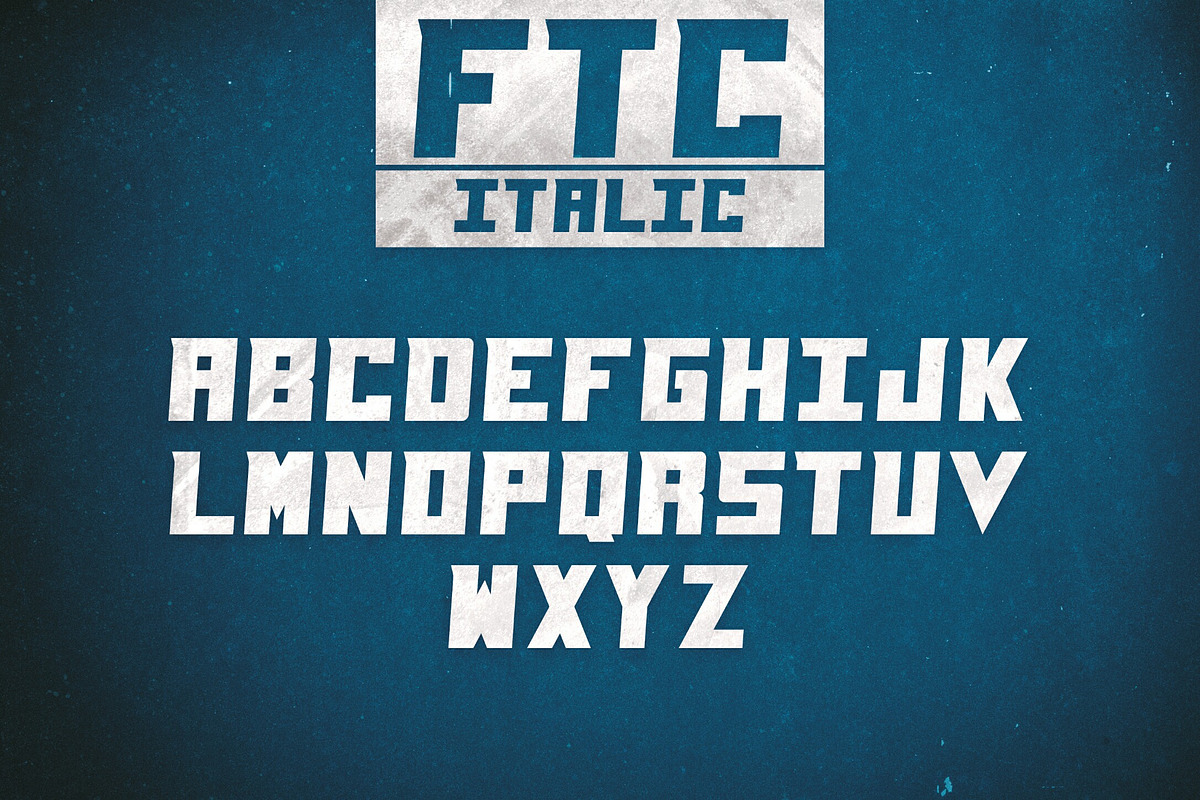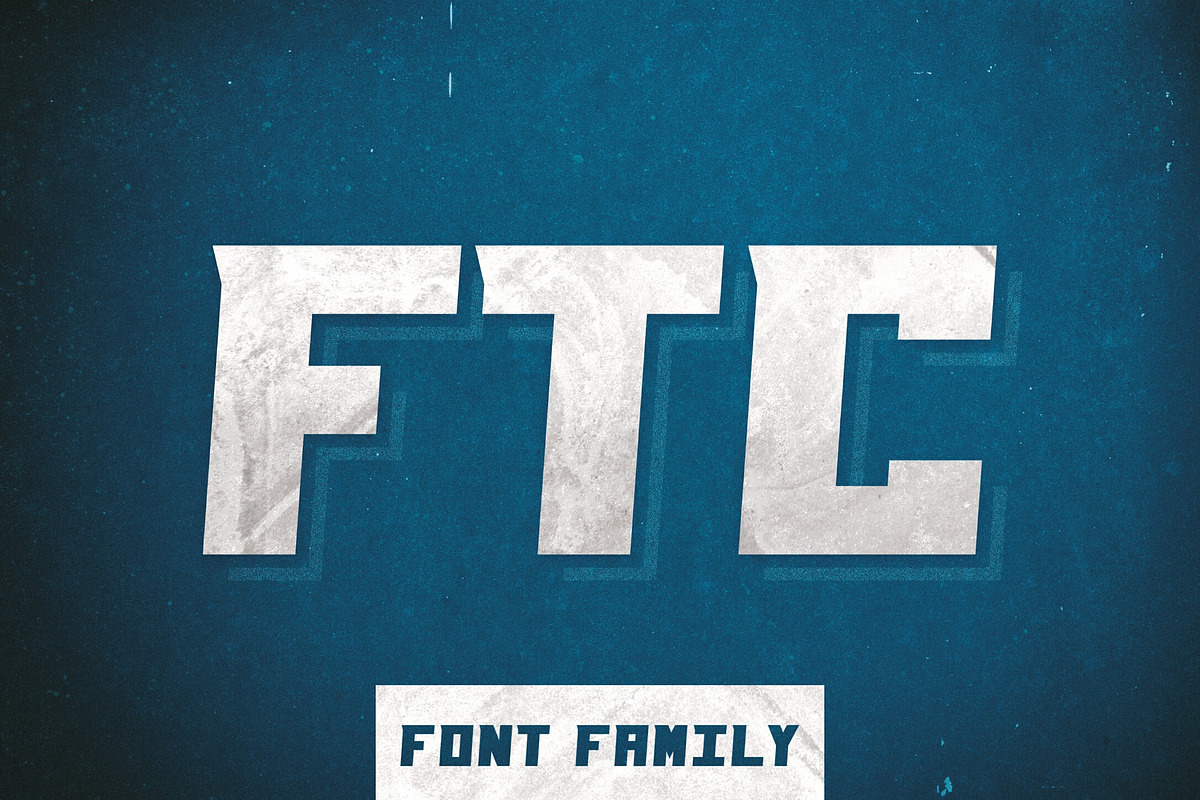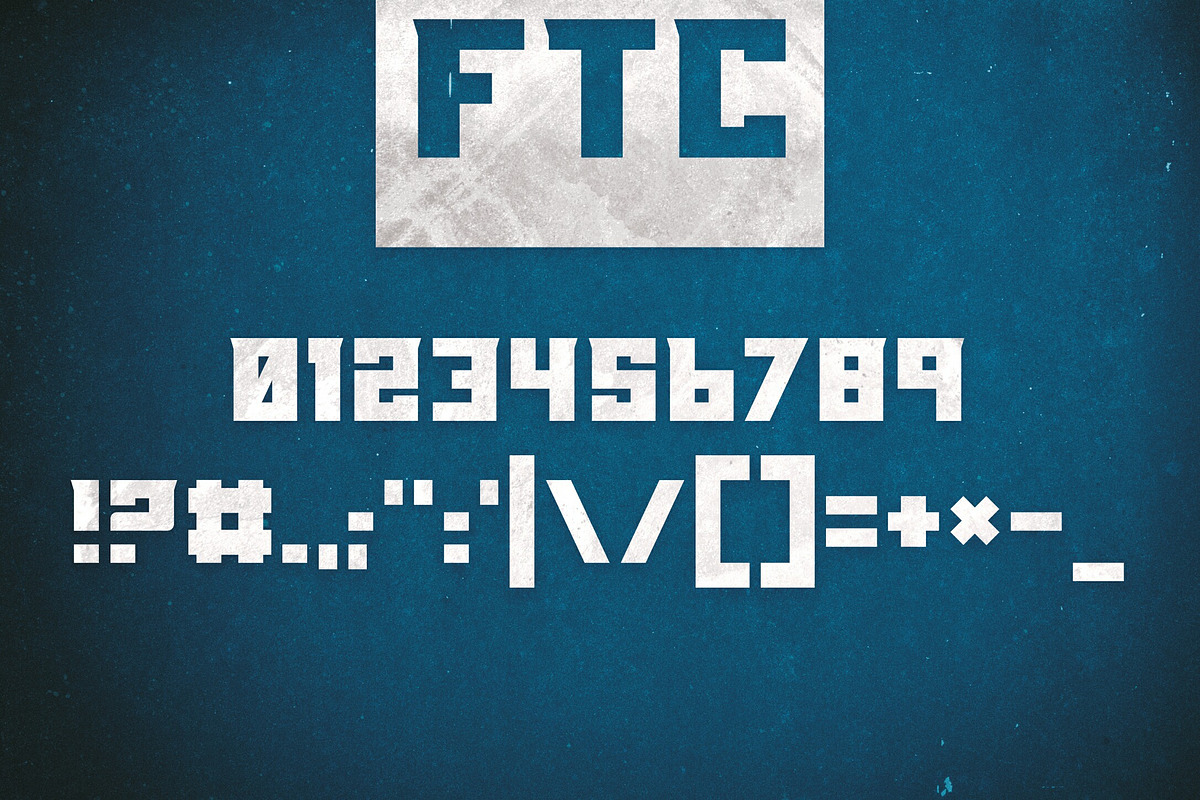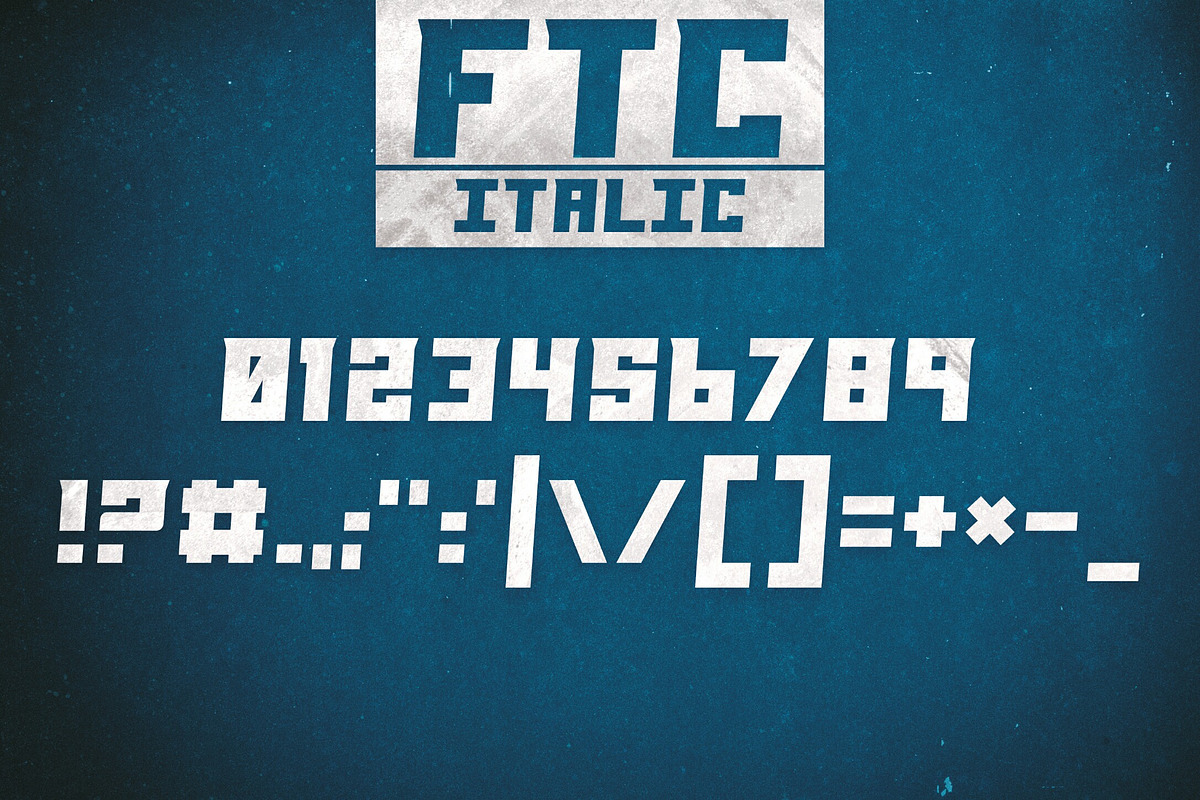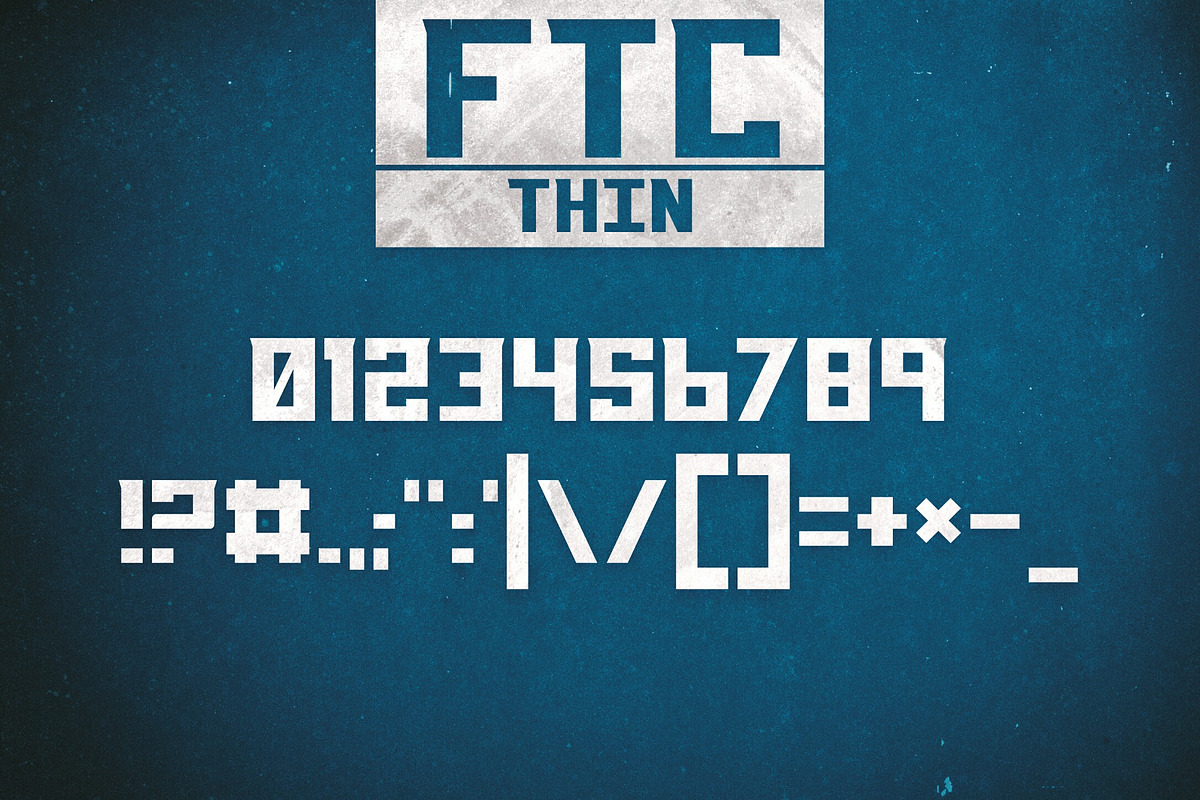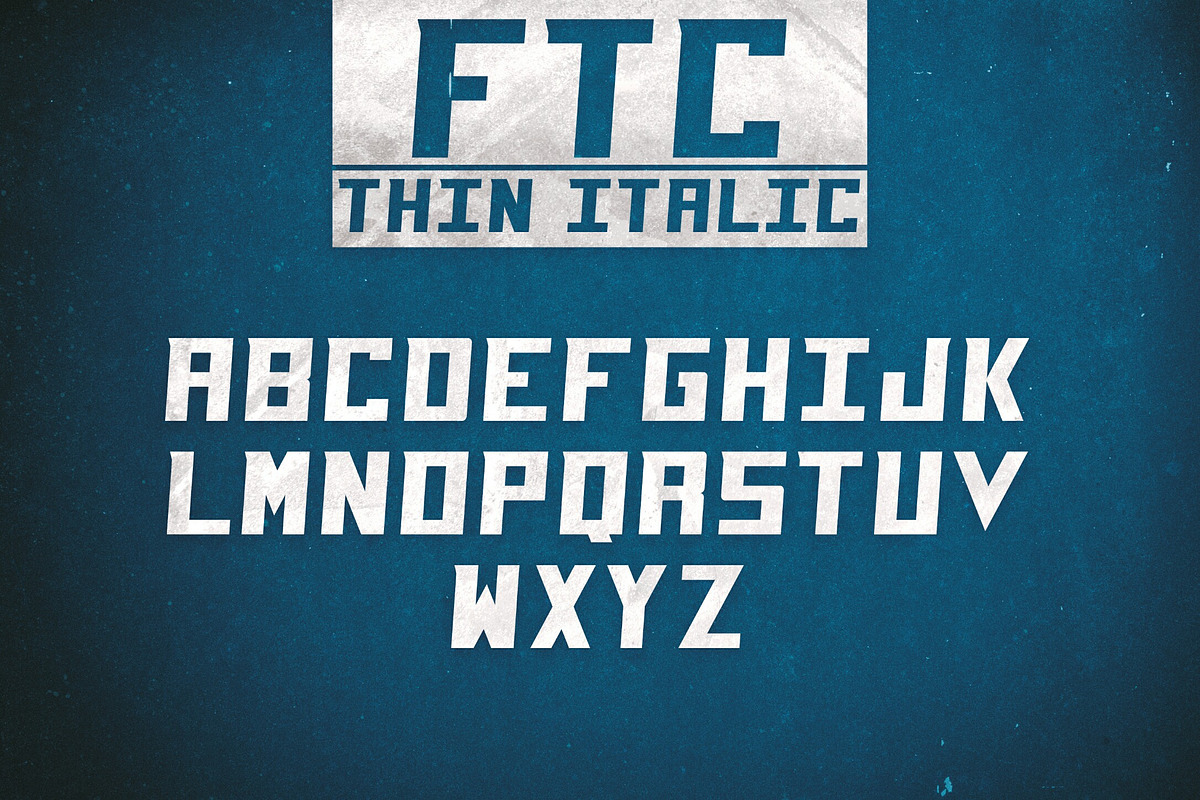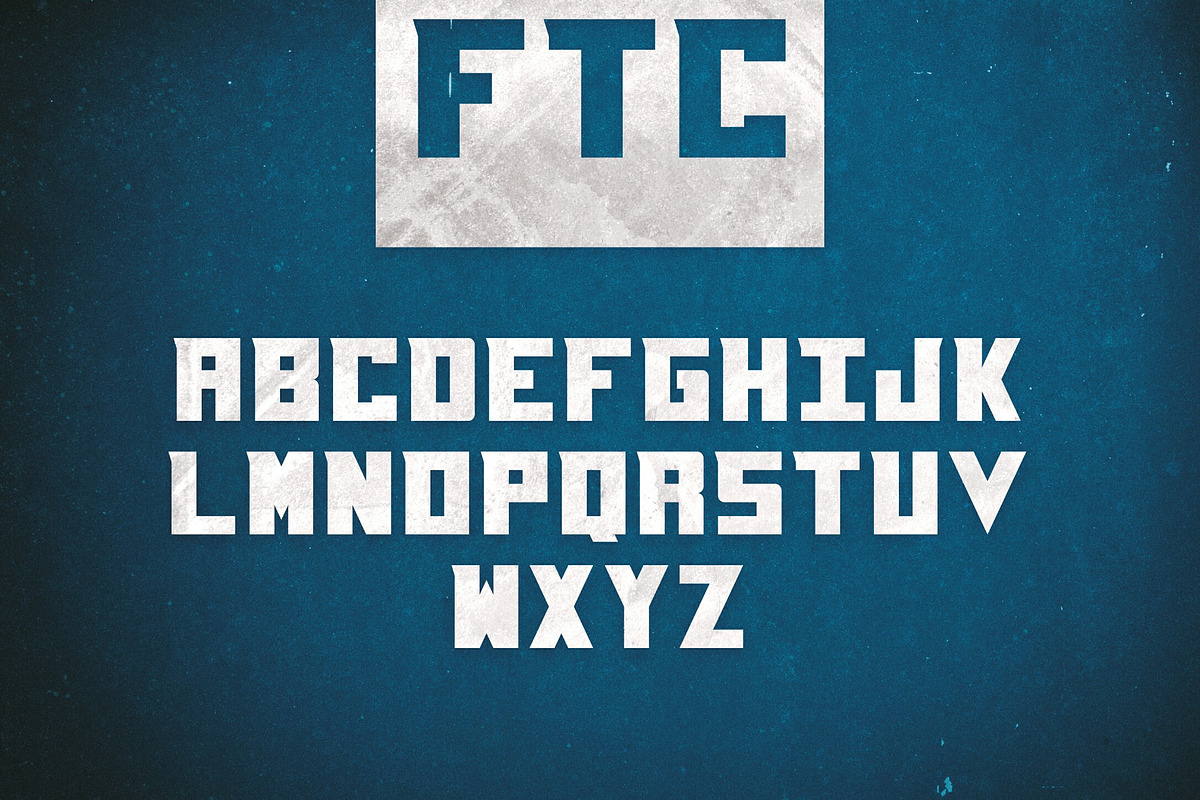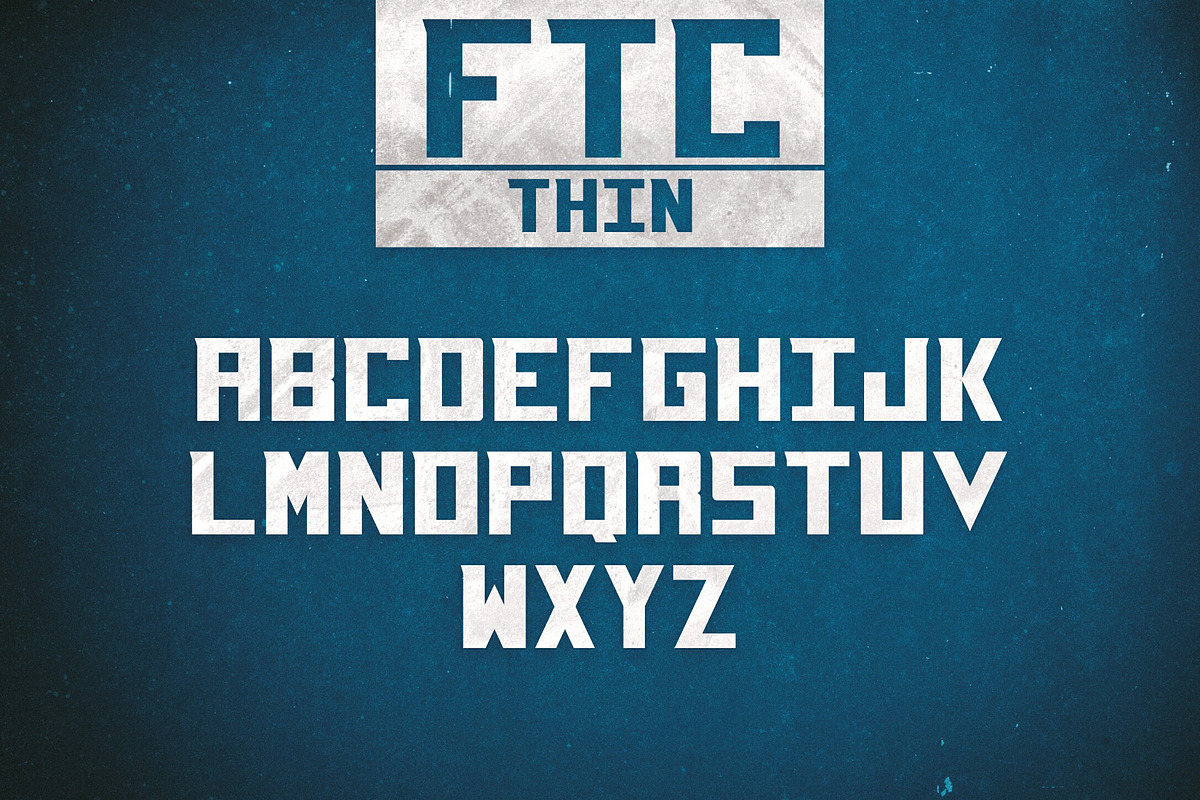
FTC Font Family
FTC Font Family by Ben Lueck Designs is a font selected for branding, posters, packaging, typography.
Why FTC Font Family is worth a look
FTC Font Family by Ben Lueck Designs fits naturally into Branding, posters, packaging, typography.